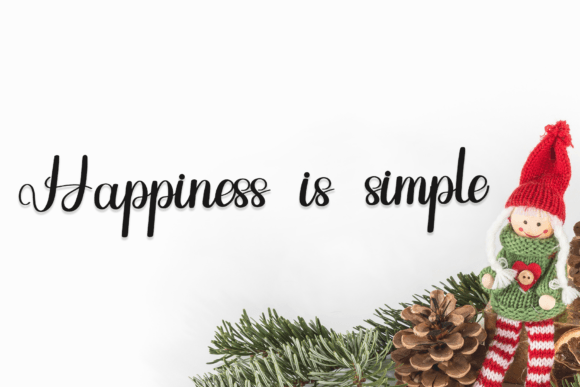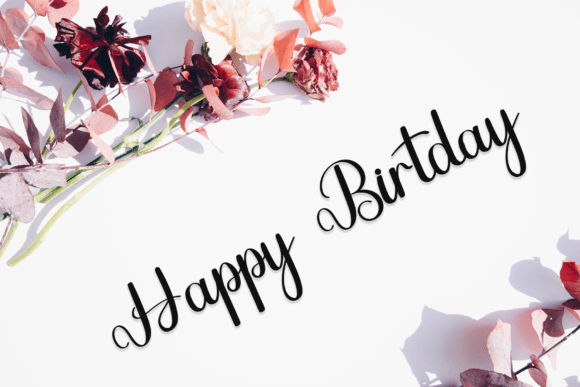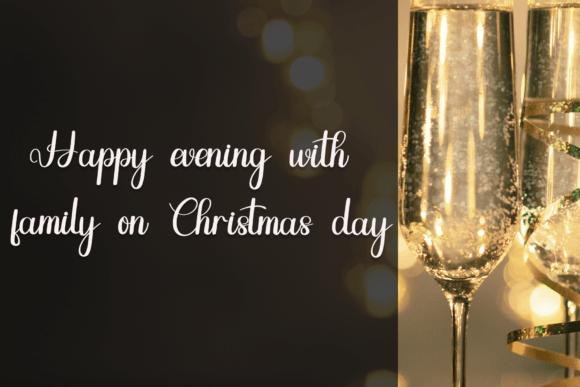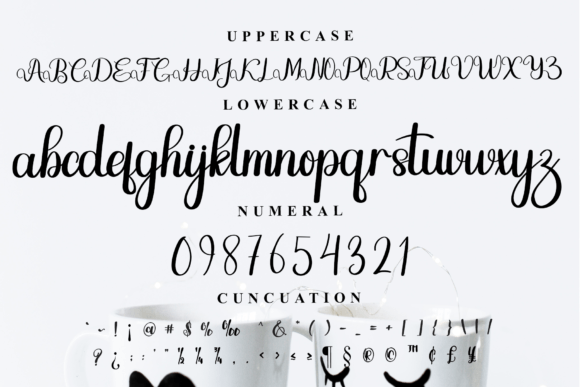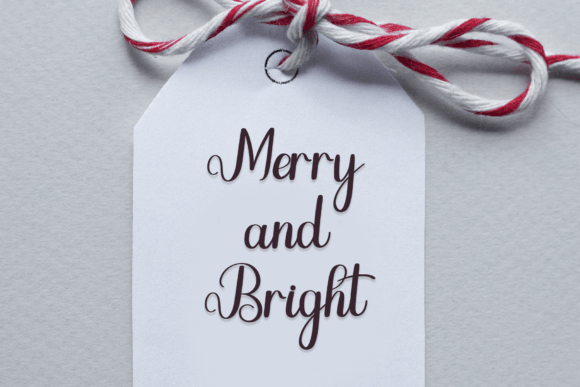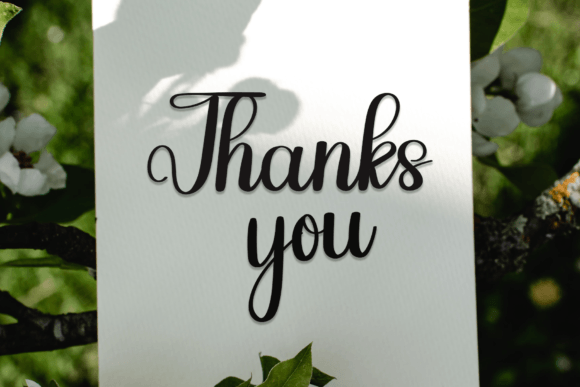
Introducing Christmas Fun Font: The Perfect Addition to Your Holiday Designs
Are you looking for a font that captures the essence of the holiday season? Look no further than the Christmas Fun Font, a beautiful handwritten font that is sure to add a touch of elegance to your designs. With its incredibly distinct and timeless style, this font is perfect for designers and crafters who want to create spectacular holiday-themed projects.
What Makes Christmas Fun Font So Special?
Christmas Fun Font is a neat and beautiful handwritten font that is described by an elegant touch. Its unique style is perfect for a variety of projects, from holiday cards and invitations to festive posters and social media graphics. The font’s classic and sophisticated look makes it an excellent choice for designers who want to create high-quality designs that stand out from the crowd.
Key Features of Christmas Fun Font
- Elegant and Timeless Style: Christmas Fun Font has a classic and sophisticated look that is sure to impress.
- Handwritten with Love: The font’s handwritten style gives it a personal touch that is perfect for holiday designs.
- Distinct and Readable: The font’s unique style is easy to read, making it perfect for body text and headings.
- Perfect for Holiday Projects: Christmas Fun Font is specifically designed for holiday designs, making it a great addition to your font collection.
How to Use Christmas Fun Font in Your Designs
Christmas Fun Font is incredibly versatile and can be used in a variety of projects, including:
- Holiday Cards and Invitations: Use Christmas Fun Font to create beautiful and elegant holiday cards and invitations.
- Festive Posters and Flyers: The font’s bold and playful style makes it perfect for creating eye-catching posters and flyers.
- Social Media Graphics: Use Christmas Fun Font to create festive social media graphics that are sure to grab attention.
- Digital and Print Projects: The font is perfect for both digital and print projects, making it a great addition to your font collection.
Why Designers and Crafters Love Christmas Fun Font
Designers and crafters love Christmas Fun Font for its unique and elegant style. The font’s classic look makes it perfect for creating high-quality designs that stand out from the crowd. Additionally, the font’s readability and versatility make it perfect for a variety of projects.
Tips and Tricks for Using Christmas Fun Font
- Pair it with Other Fonts: Experiment with pairing Christmas Fun Font with other fonts to create unique and interesting combinations.
- Use it for Headings and Titles: The font’s bold and playful style makes it perfect for headings and titles.
- Add Decorative Elements: Add decorative elements, such as holly or snowflakes, to give your designs a festive touch.